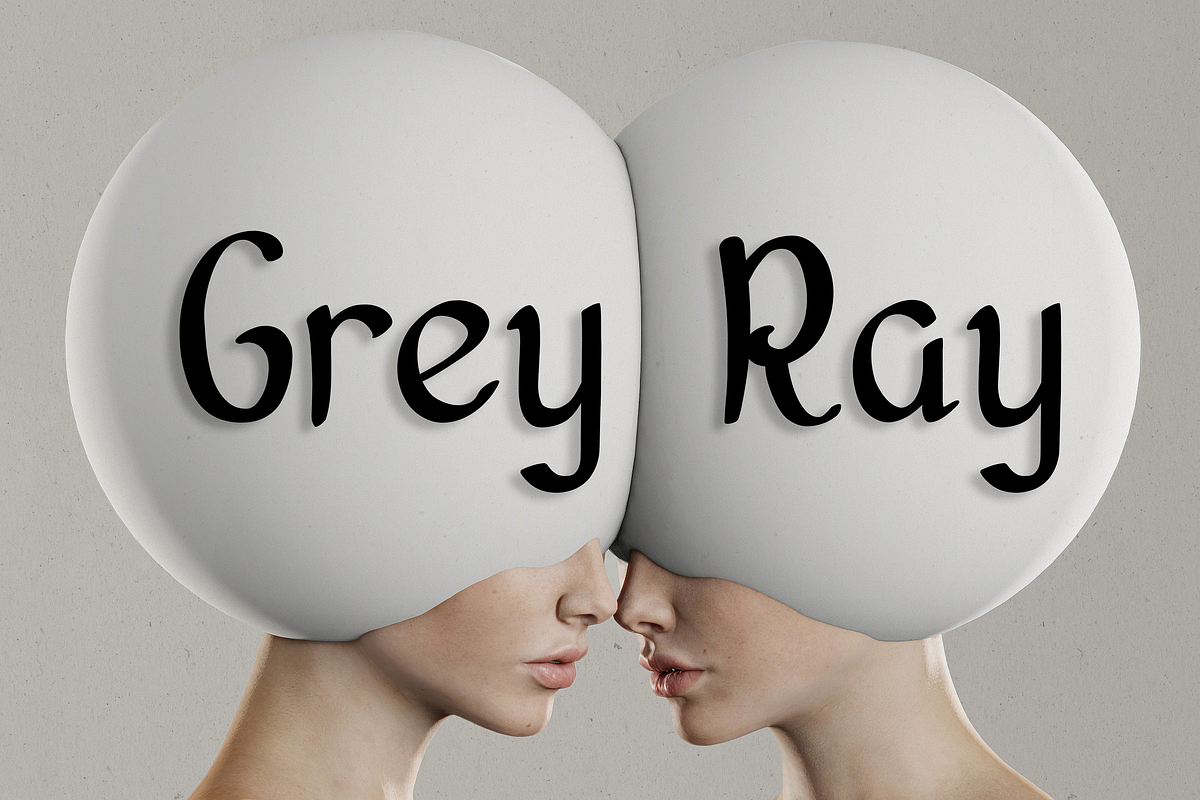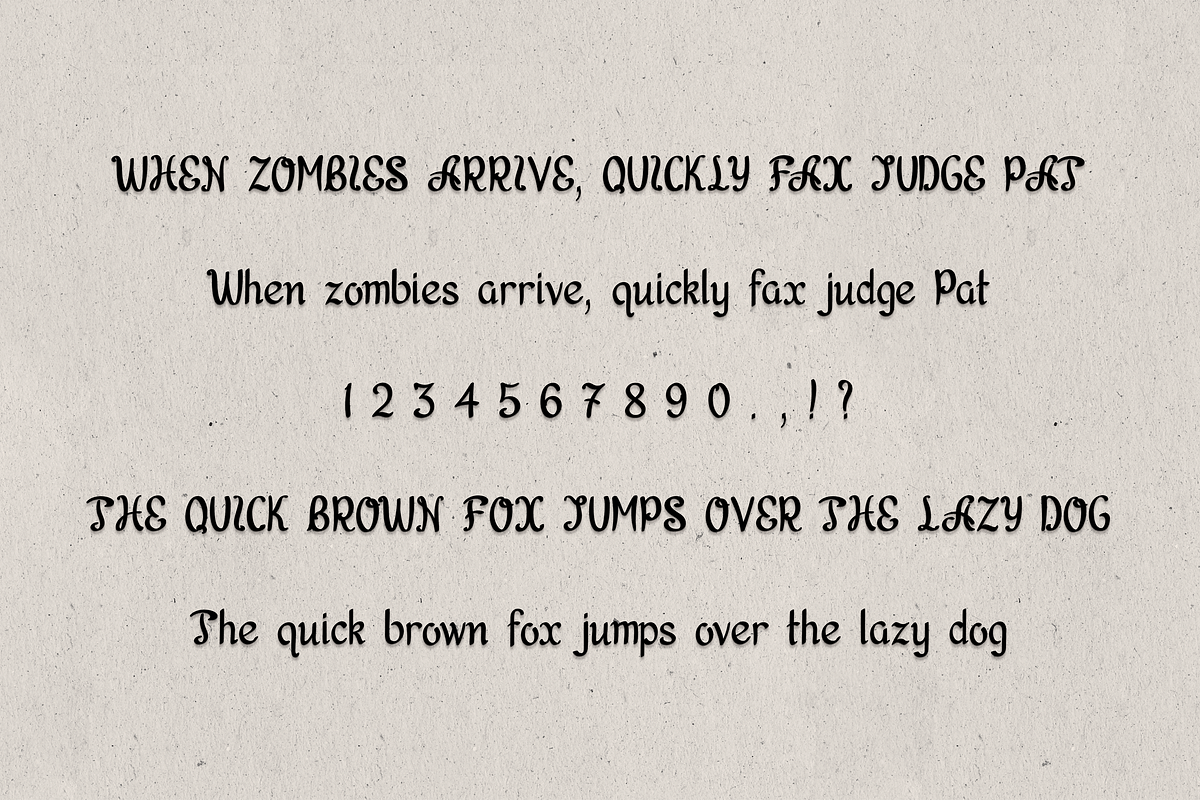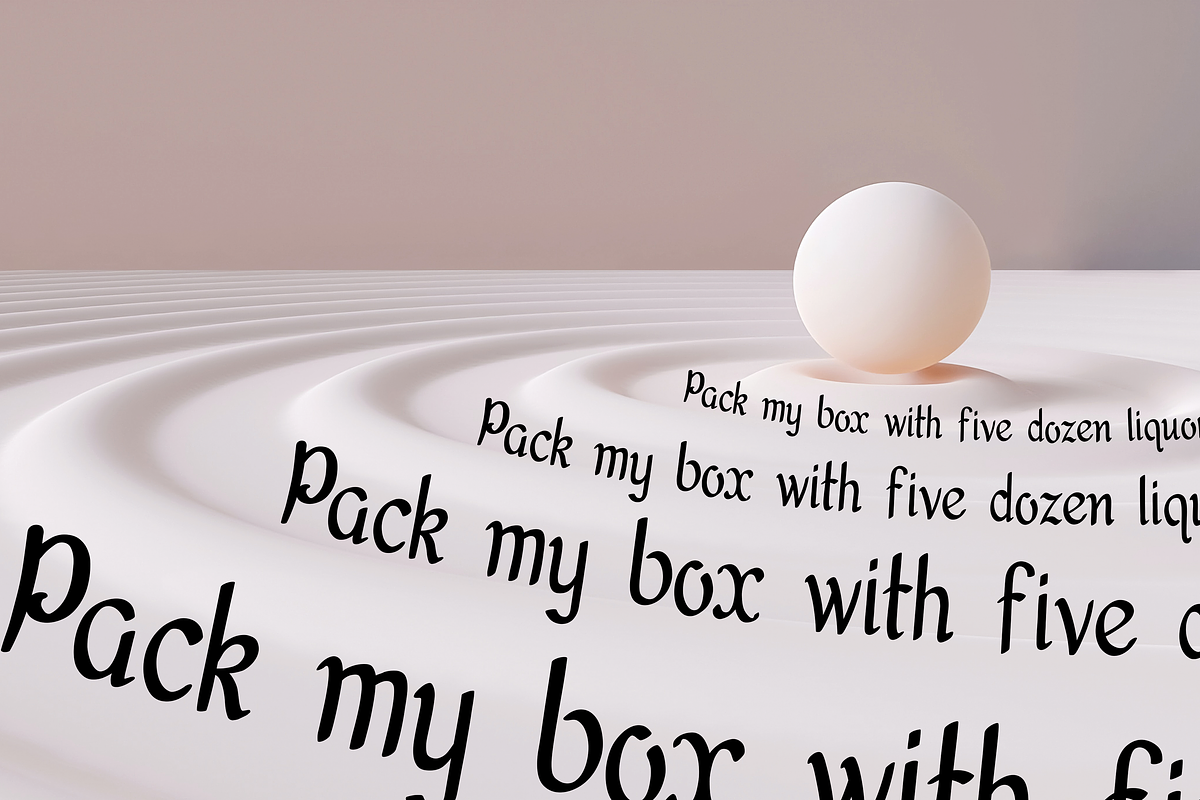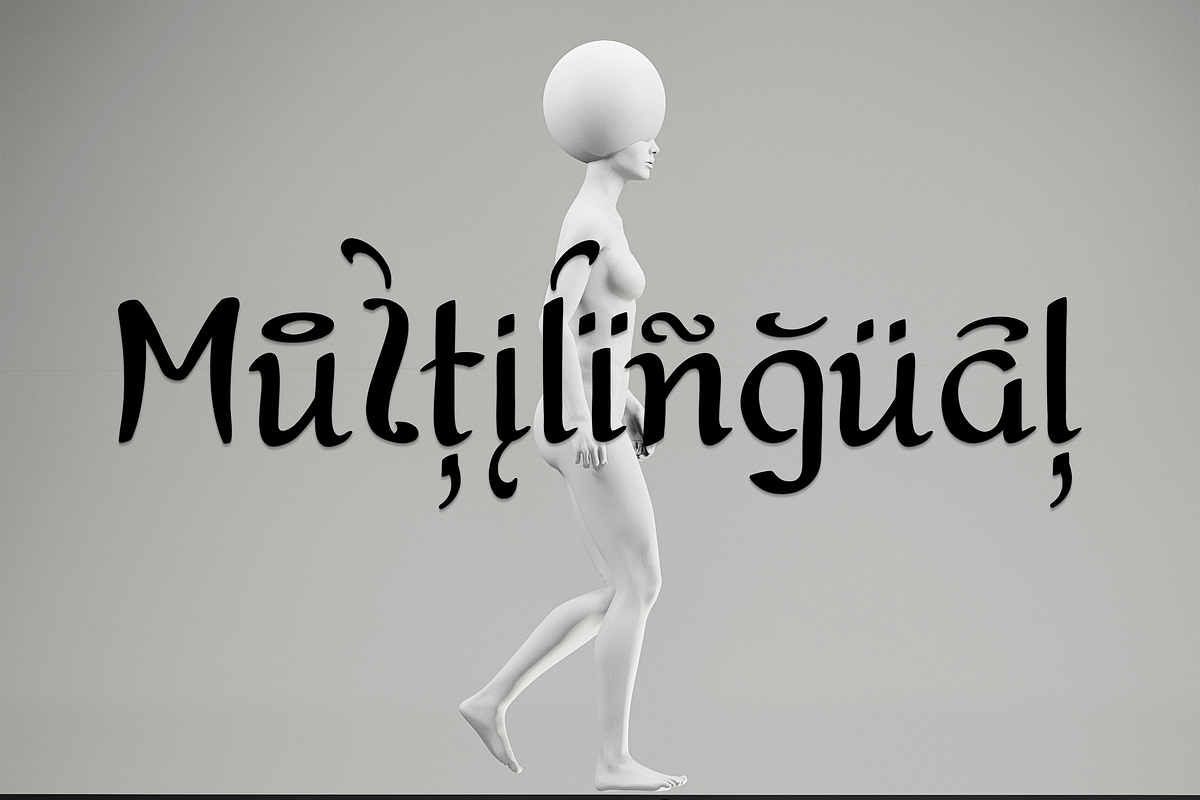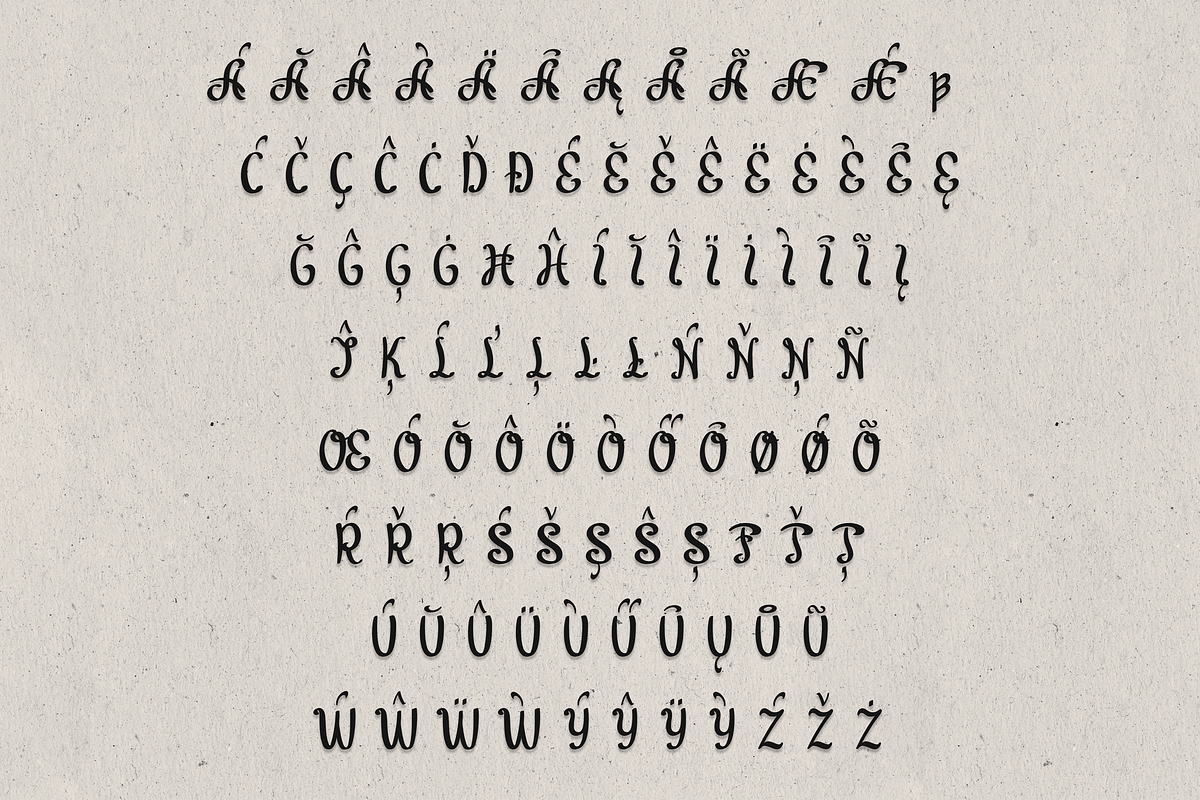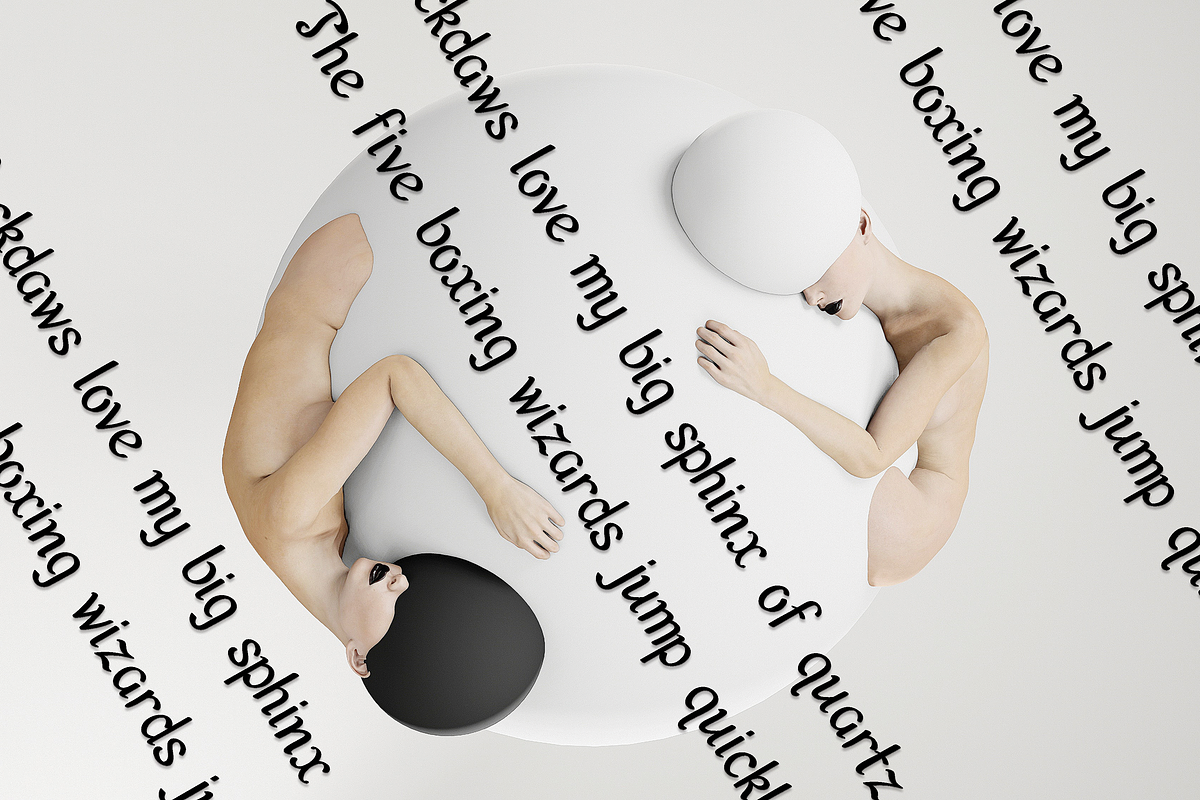
Grey Ray | Vintage Sans Serif
Step back in time with Grey Ray, the ultimate vintage font that will transport you straight to the groovy vibes of the 70s. This retro gem is all about style, elegance, and nostalgia. With its sleek sans serif design, Grey Ray is perfect for adding a touch of retro flair to your designs, whether it's for posters, logos, packaging, or any creative project. Get ready to make a statement and captivate your audience with the timeless charm of Grey Ray | Vintage Font.
- Special letters for most of the European languages